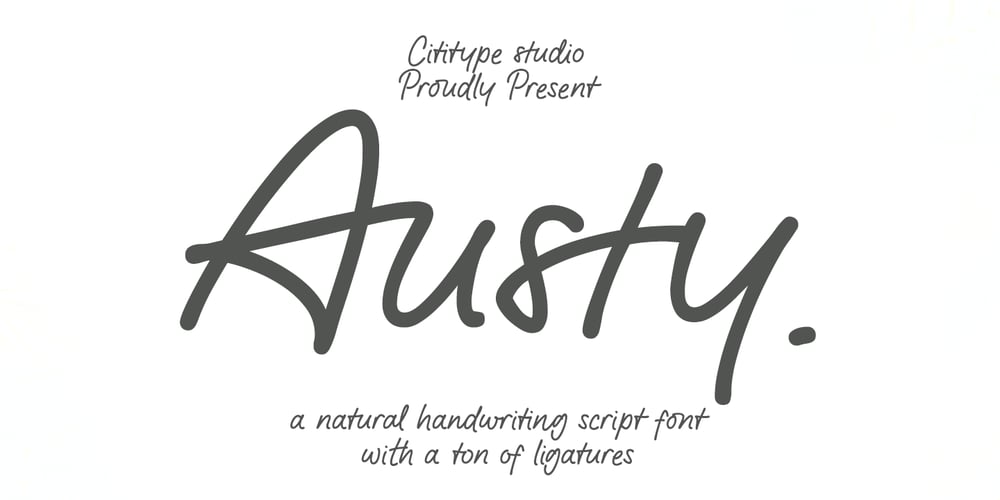
Austy
Austy font
Austy Font Family was designed by Muhammad Ridha Agusni, Siti Saribanon Nurjannah and published by Cititype. Austy contains 1 styles and family package options. Austy is sophisticated typography that looks authentically handwritten.This typeface comes with 120 ligatures for a natural flow and feel, Use Austy to create stunningly beautiful designs easily. Perfect for logos, Digital signature, branding, business cards, watermarks, and much more!